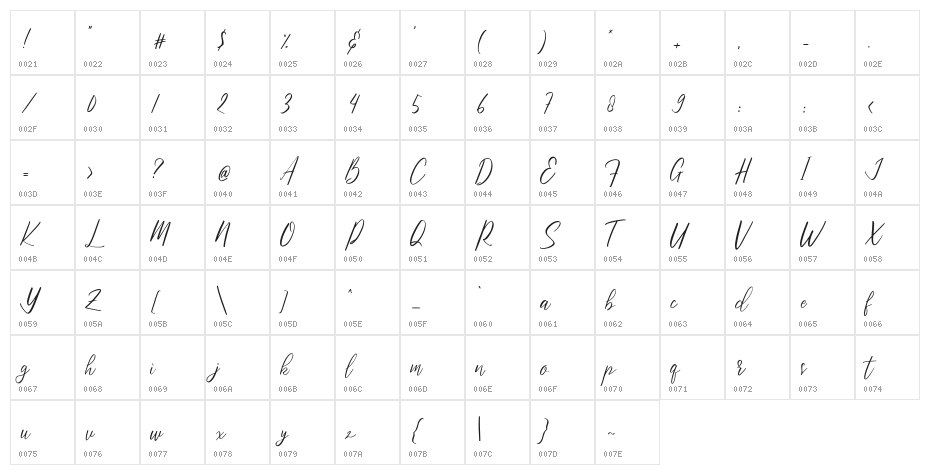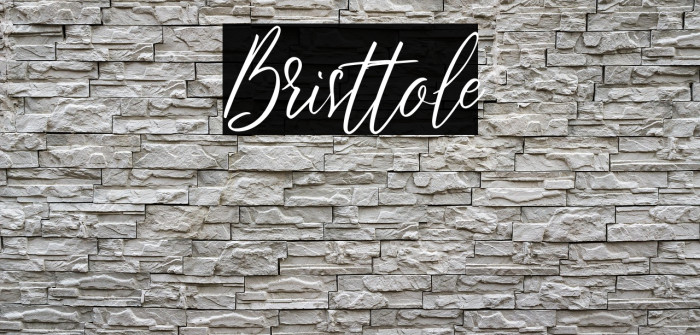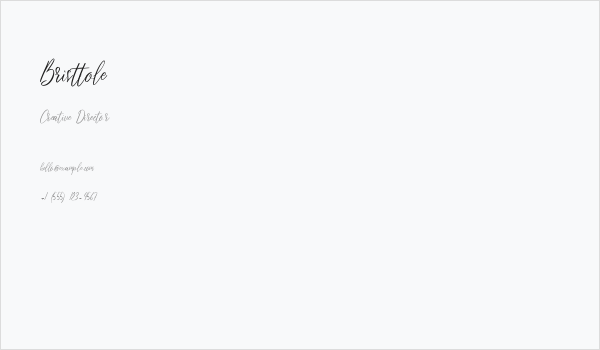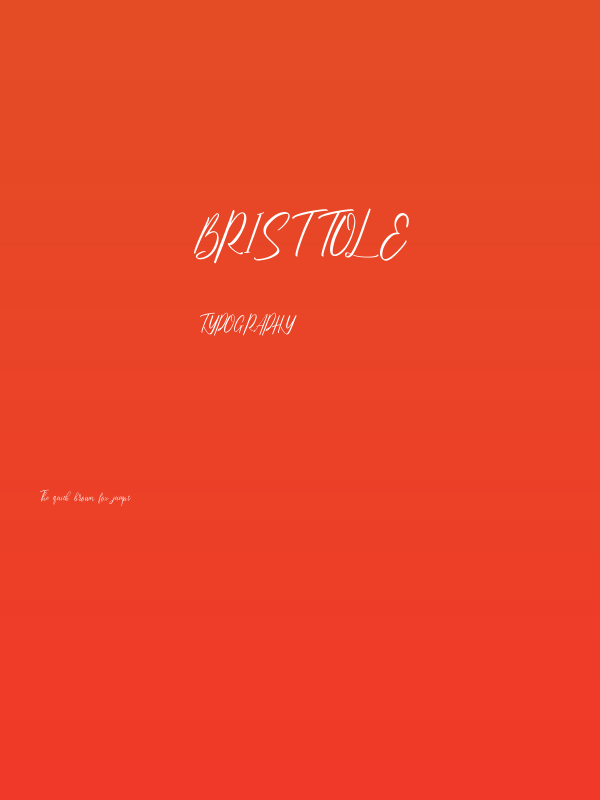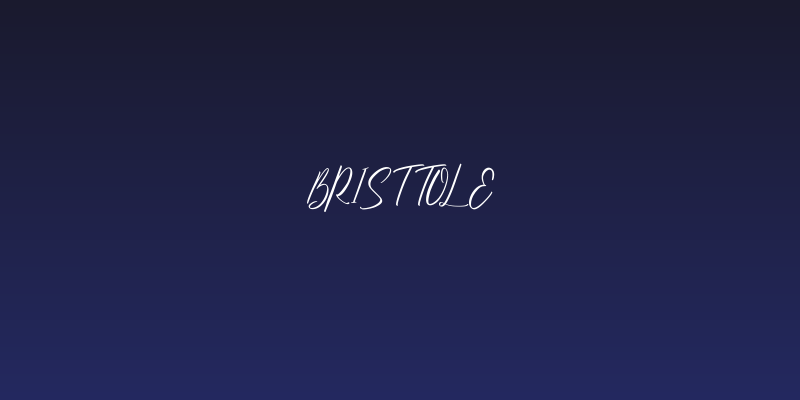
Bristtole Font
Bristtole Description
This font features an elegant, flowing script style that mimics the fluidity of natural handwriting. The characters are connected with smooth, sweeping strokes, giving it a graceful and sophisticated appearance. The uppercase letters are slightly more ornate, with extended flourishes that add a touch of drama. The lowercase letters maintain a consistent rhythm, enhancing readability while preserving the font's artistic flair. Numbers and special characters are designed with the same attention to detail, ensuring a cohesive look across all text elements. This font is perfect for projects that require a personal, handwritten touch, such as invitations, greeting cards, and branding materials.
| Overall Style | Elegant, Handwritten |
| Use Case | Logos, Invitations, Personal stationery |
| Proposed Projects | Ideal for wedding invitations, greeting cards, branding, and personal stationery. |